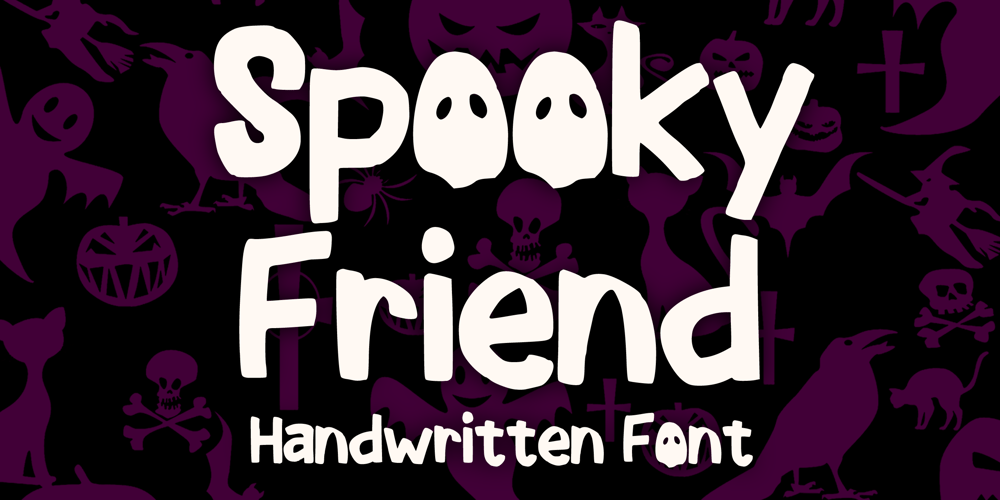
Spooky Friend Font Family was designed by Gabriel Valentinus and published by Mvmet. Spooky Friend contains 1 styles and family package options. Spooky Friend is a cool kids friendly ghost display font for your Halloween party! You can use it for anything ranging from t-shirts and clothing, for your scary book designs, Halloween party needs, greeting cards, stickers, posters, banners, or anything that needs a spooky and fun touch. Try it to create fabulous designs and feel the fun and Halloween vibes with it!